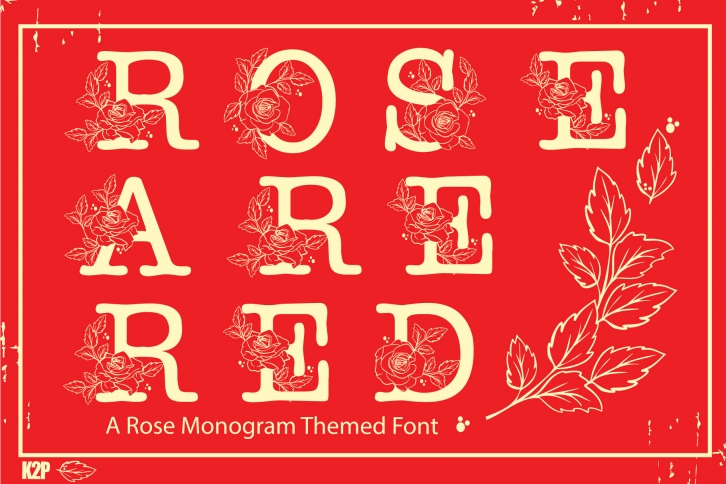
Rose Are Red is a bold and incredibly elegant decorative font, featuring lovely flowers as ornaments. This original look will appeal to a wide range of crafty ideas, from letterheads and titles to stationery.